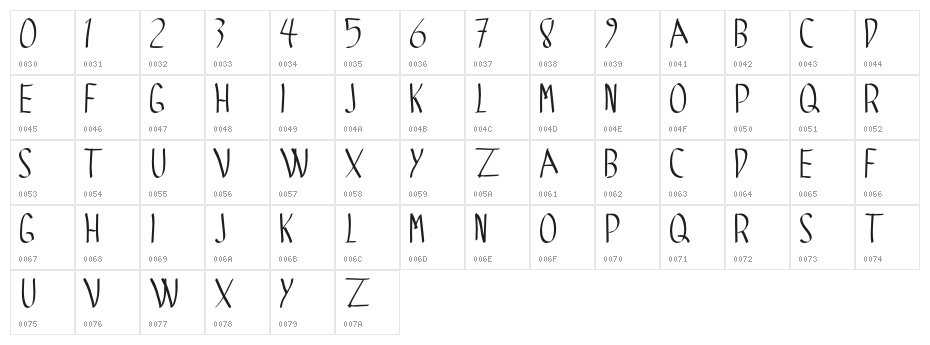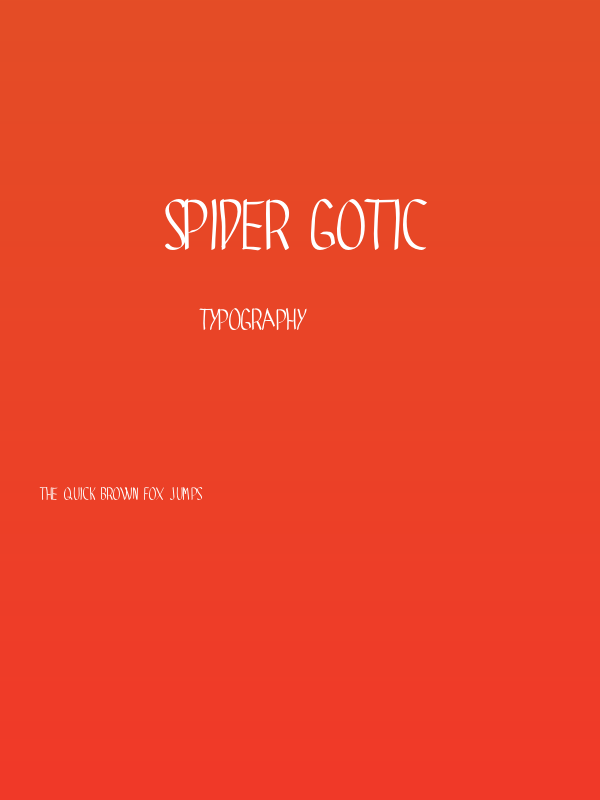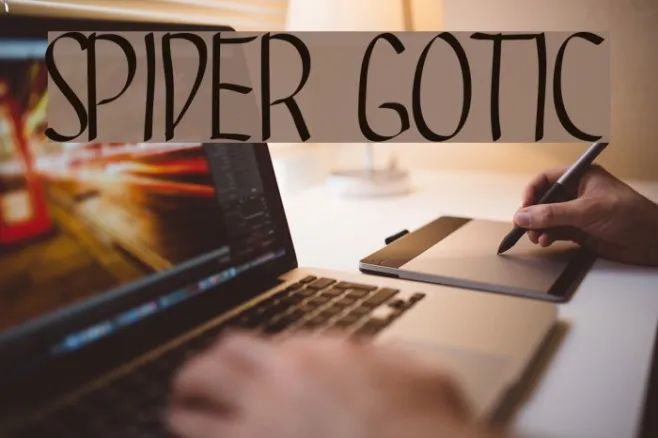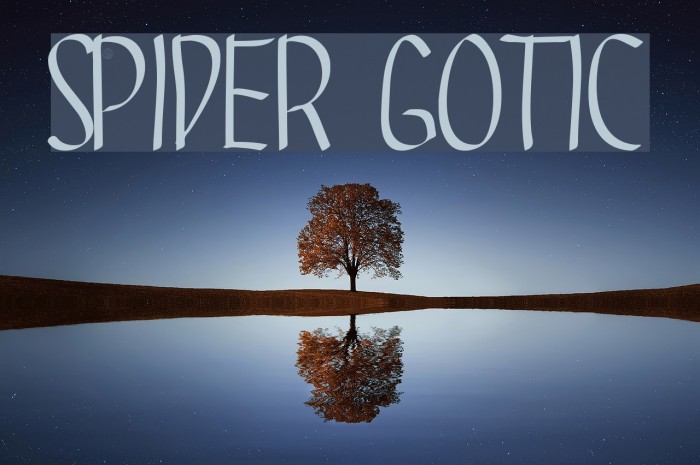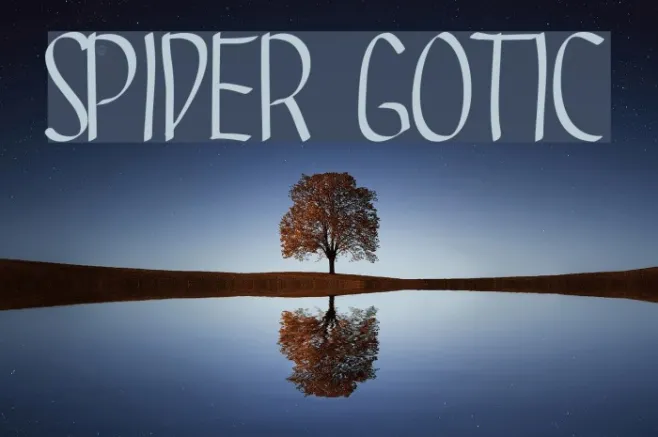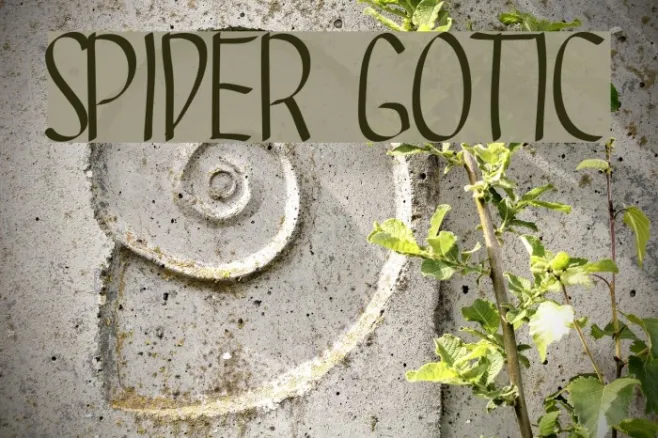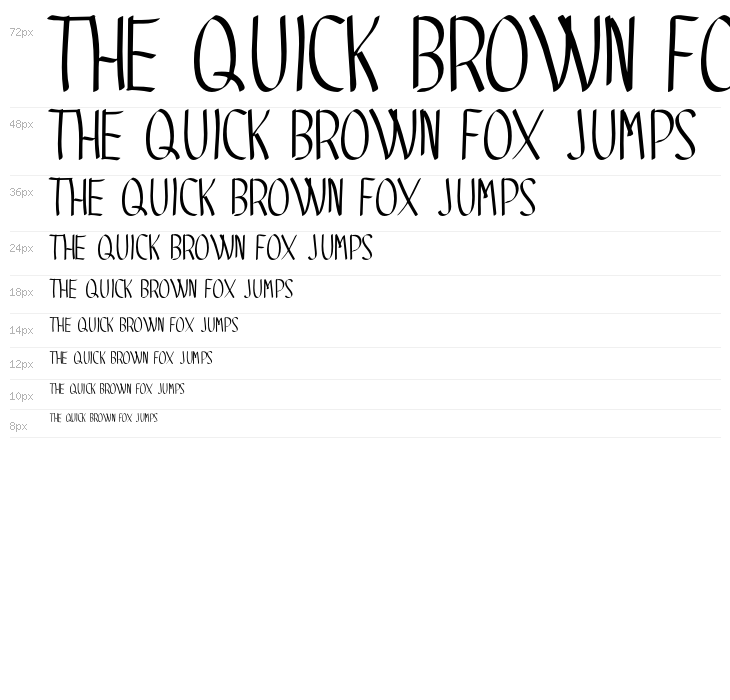
SPIDER GOTIC Font
SPIDER GOTIC Description
This font features a unique, hand-drawn style with elongated and slightly irregular strokes, giving it a whimsical and playful appearance. The uppercase letters are tall and narrow, with a slight slant that adds a dynamic feel. The lowercase letters maintain the same playful style, with some characters featuring distinctive loops and curves. The numbers are consistent with the overall style, offering a quirky yet legible appearance. The special characters are creatively designed, fitting seamlessly with the rest of the font. This font's distinct personality makes it suitable for projects that require a touch of creativity and individuality.
| Overall Style | Whimsical, Playful, Artistic |
| Proposed Projects | Ideal for children's book covers, creative posters, playful branding, and artistic invitations. |